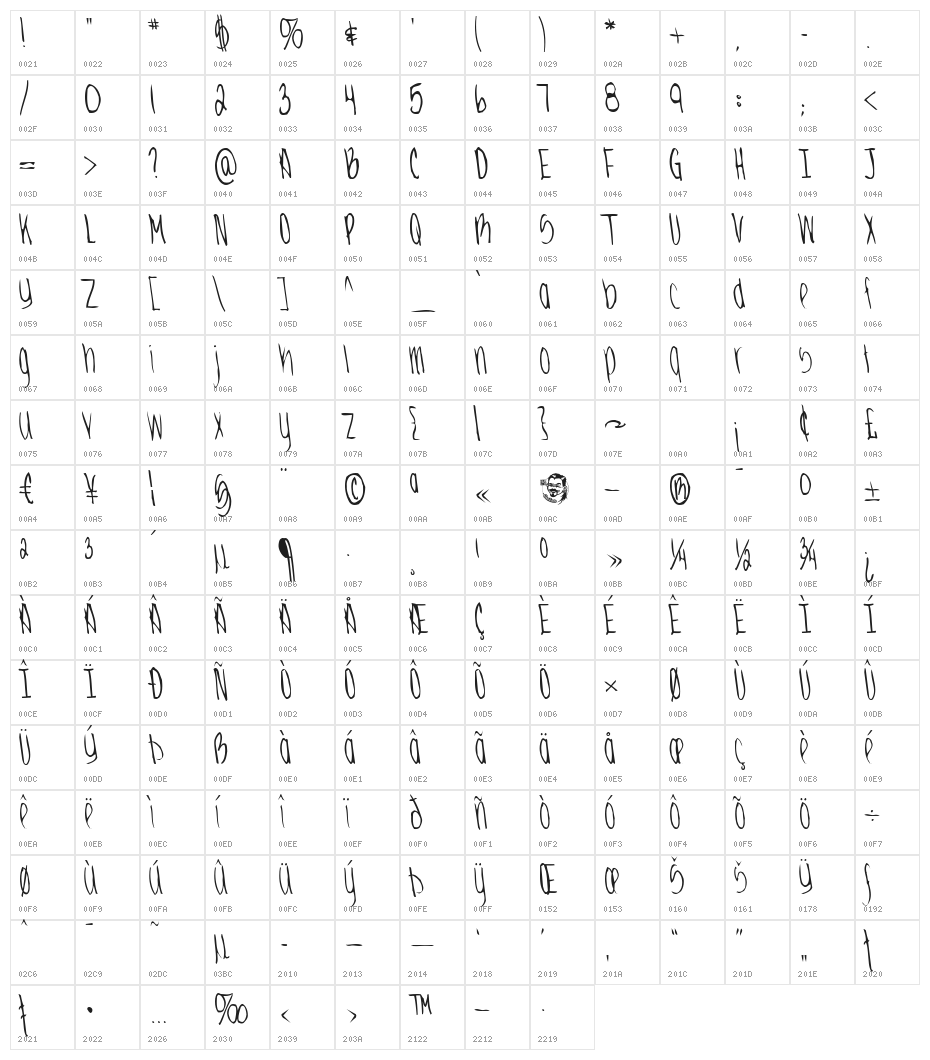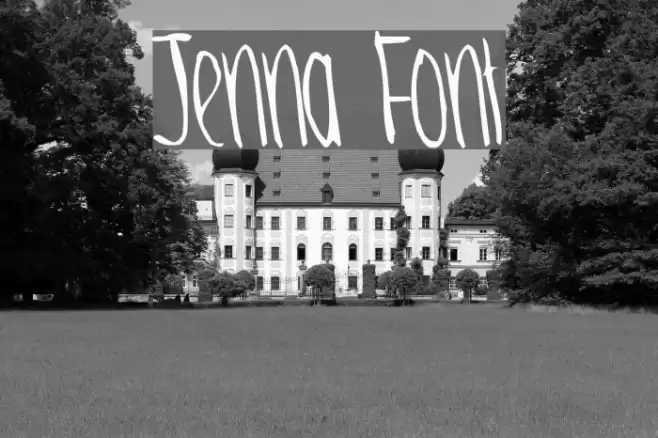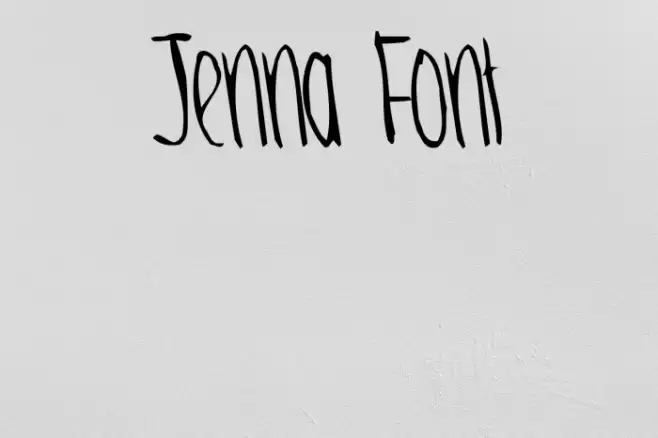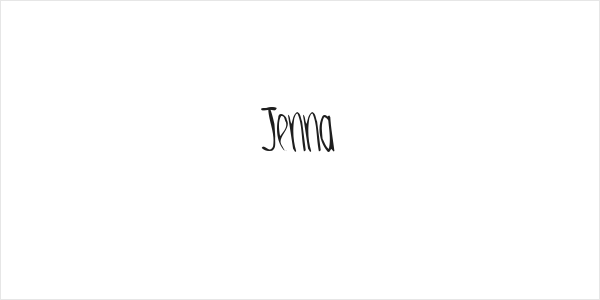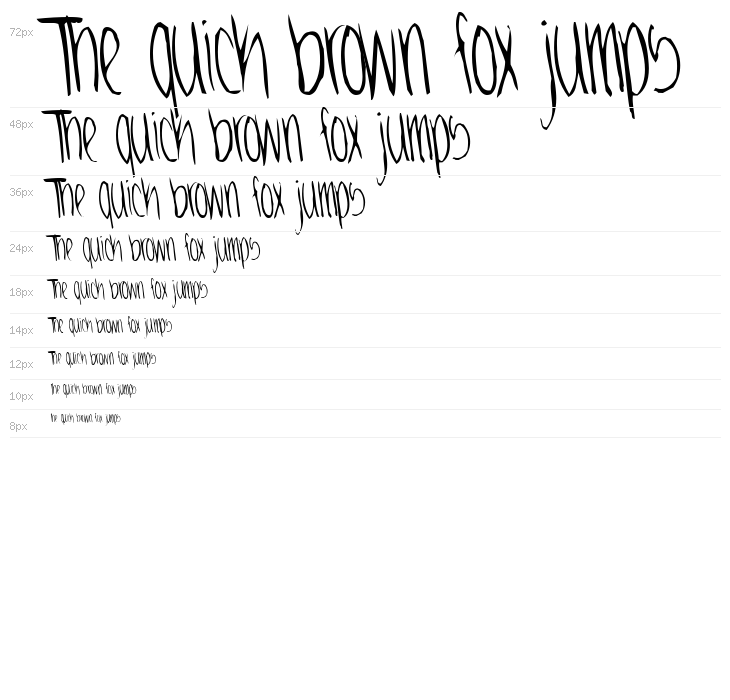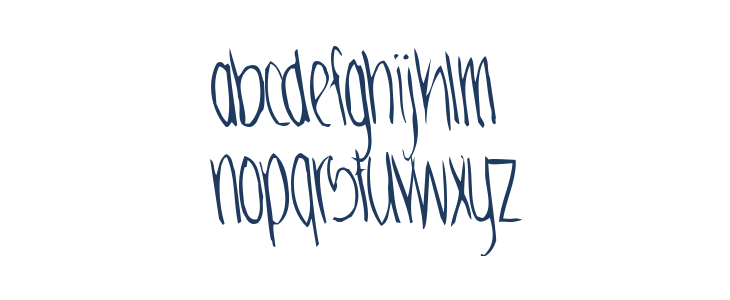
Jenna Font
Jenna Description
This font features a playful and whimsical handwritten style, characterized by its tall, narrow letters with a slightly irregular baseline. The strokes are bold and expressive, giving it a lively and dynamic appearance. The uppercase and lowercase letters maintain a consistent style, with elongated forms and a casual flair. Numbers and special characters follow the same energetic design, making the font versatile for creative projects. The overall look is informal and artistic, perfect for adding a personal touch to any design.
| Proposed Projects | Ideal for greeting cards, children's book covers, playful branding, and artistic posters. |